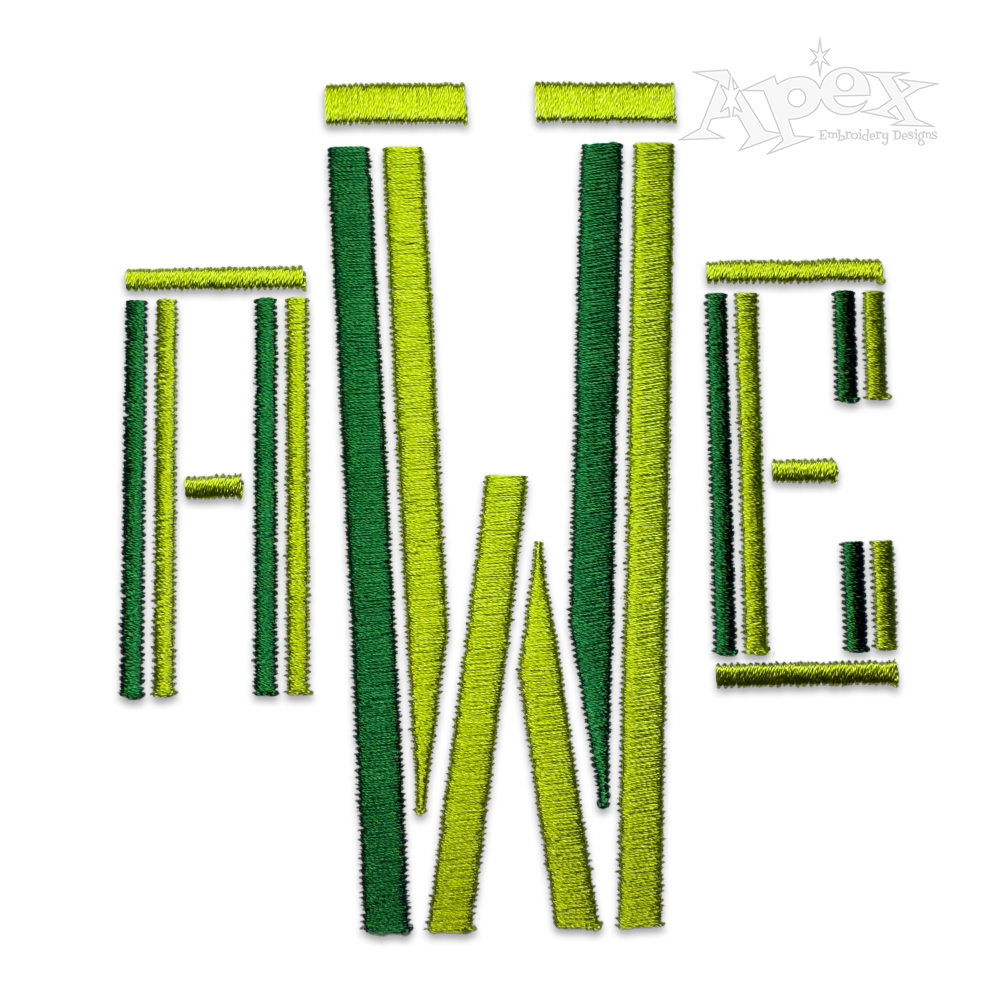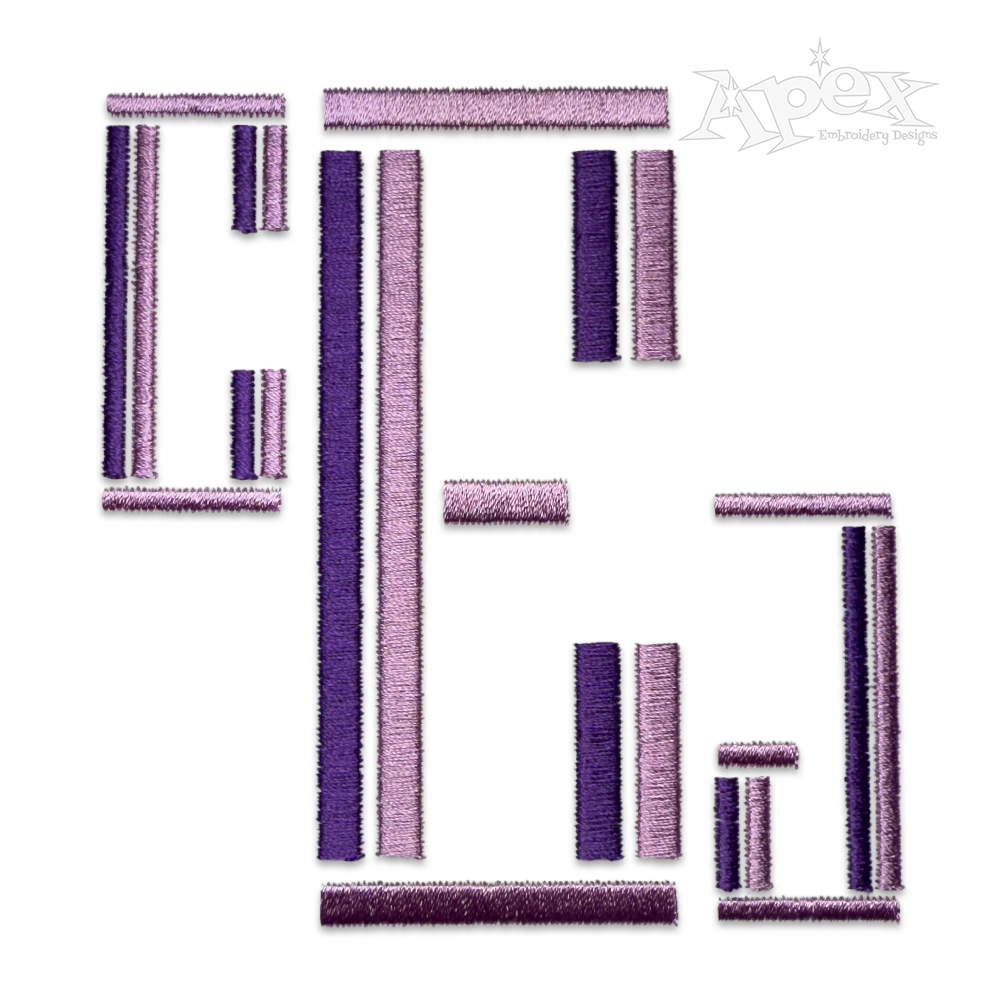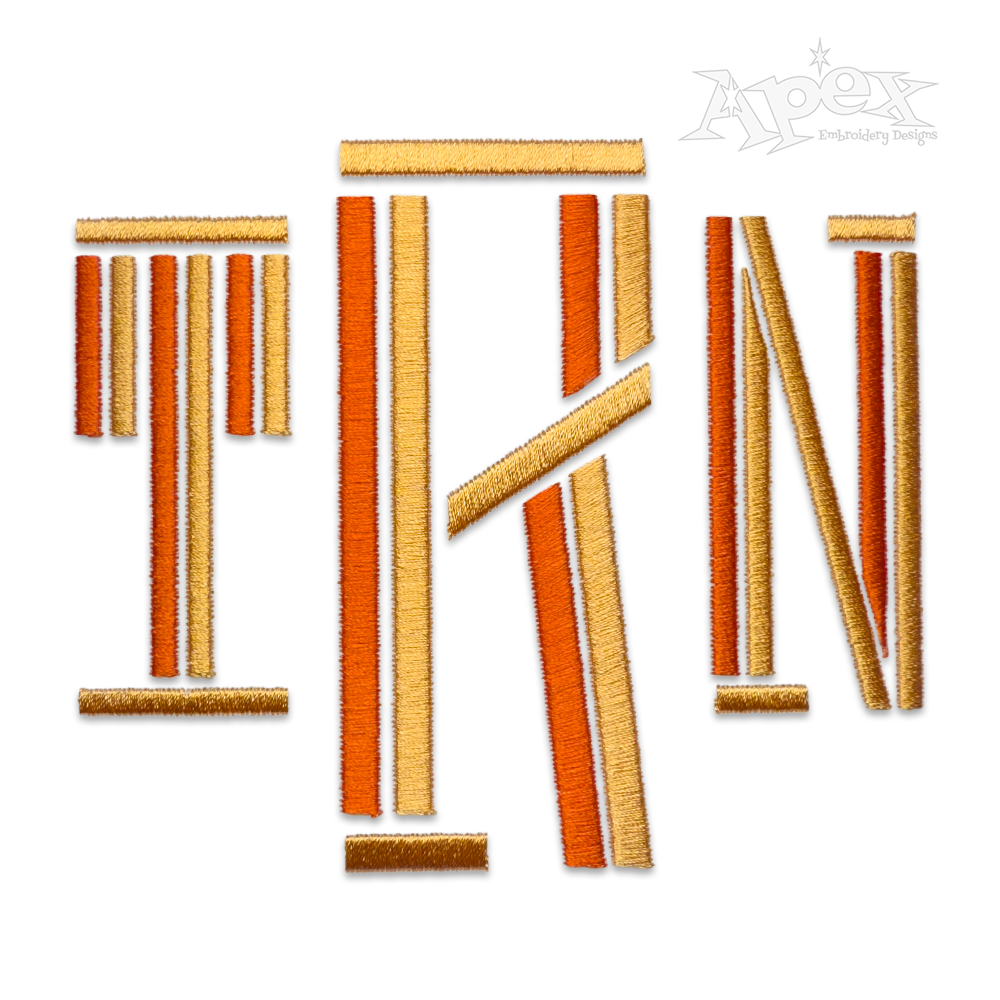
Column Monogram Embroidery Font
Standing with the quiet authority and timeless balance of classical Mediterranean architecture, the Column Monogram Embroidery Font transforms personal monograms into stately stone-carved monuments. Inspired by the fluted pillars and enduring marble capitals of antiquity, this alphabet brings a statuesque presence to fabric. When digitizing this collection, we envisioned the way crisp Mediterranean sunlight casts sharp, sculpted shadows against ancient porticos?a dimensional drama captured through its striking two-color shadow structure. Each letter feels balanced, historic, and deliberate, turning standard bespoke embroidery into an enduring heirloom statement that commands attention without raising its voice.
Designed to maintain pristine thread density and flawless proportions across every scale, the Column Monogram alphabet includes complete uppercase typography in three versatile sizes:
- 2.0 Inch Height: Sized for crisp, tailored personal accessories, pocket accents, and fine dinner napkins.
- 3.0 Inch Height: A balanced scale for guest towels, medium totes, decorative pillow corners, and vanity linens.
- 4.0 Inch Height: A bold, commanding display letter ideal for heirloom bedding, grand travel luggage, and center-pillow monograms.
Project Ideas for Column Monogram Embroidery Font
The neoclassical presence of this architectural alphabet opens up abundant creative avenues for bespoke lifestyle items and personalized gifting:
- Luxury Table Linens: Stitch crisp single initials in tone-on-tone ivory and stone thread onto hemstitched linen cocktail napkins, placemats, or table runners for stately dinner parties.
- Heirloom Bedding & Pillow Shams: Create museum-worthy guest room suites with an imposing 4-inch letter embroidered onto crisp percale duvets and Oxford pillowcases.
- Bespoke Resort Wear & Robes: Personalize waffle-weave spa robes, terrycloth wraps, and linen cabana shirts with a sophisticated resort crest effect.
- Heavy Canvas Totes & Weekender Bags: Anchor natural boat bags and equestrian gear with high-contrast stitching that echoes classic maritime and collegiate tradition.
- Distinguished Executive Gifting: Upgrade leather valet trays, desk organizers, and tailored travel pouches for anniversaries, milestones, and bridal party keepsakes.
Because of its pronounced architectural verticality and dual-layer shadow effect, placement plays a vital role in showcasing this font's beauty:
- Napkin Corner Diagonal: Orient the monogram 1.5 to 2 inches inward from the corner hemline along a 45-degree bias fold to create an elegant drape when folded or set into rings.
- Center Pillow Face: Position the 3-inch or 4-inch monogram dead-center on a 16x16 or 18x18 accent cushion for a clean, formal focal point.
- Left Chest Placement: For robes, jackets, and structured overshirts, place the 2-inch monogram 7 to 9 inches down from the shoulder seam, centered between the placket and side seam.
- Fingertip & Bath Towel Borders: Position the letter 2 inches directly above the dobby border or lower decorative trim, allowing the column base to visually anchor against the hem.
Column Monogram Embroidery Font Craft & Letterform Details
Translating architectural stone fluting into malleable thread requires uncompromising technical digitizing. The Column Monogram is engineered with a harmonious split-layer configuration: a primary foreground letter that showcases the stately, upright posture of classic Ionic and Doric columns, and a precisely offset shadow layer that creates structural relief. Every stroke features custom stitch pathing calibrated to prevent pulling, ensuring the shadow layer locks effortlessly against the main body without leaving unsightly fabric gaps. The column caps and stepped base serifs are finished with dense, lustrous satin stitching that catches room light from every angle, imparting the illusion of three-dimensional depth, crisp clean edges, and rich, handcrafted substance on every stitch-out.